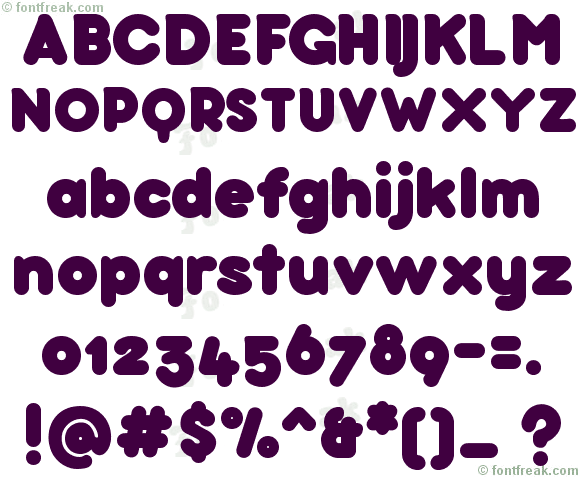
bubbleboddy Fat
About bubbleboddy Fat
Bubbleboddy Fat is a unique display font from the kmzero font foundry, designed to capture attention with its playful and rounded letterforms. As a decorative font, it features a bold stroke weight that creates a sense of warmth and approachability, making it ideal for various creative applications. The lack of sharp edges gives the font a friendly demeanor, while the consistent spacing between letters enhances readability, making it suitable for both headlines and body text.
This font excels in a variety of contexts where a lighthearted touch is desired. It can be particularly effective for children's book titles, offering a whimsical element that appeals to young readers. Additionally, bubbleboddy Fat is perfect for vibrant restaurant menus that aim to convey a casual atmosphere or for event flyers that require a fun and inviting look. Graphic designers might also find it useful for branding projects, where establishing a memorable identity is crucial. Furthermore, the font can add flair to social media graphics, helping content creators engage their audiences with eye-catching visuals.
What sets the bubbleboddy Fat font apart is its ability to combine functionality with personality. Its rounded forms and bold presence make it a standout choice for anyone looking to add a touch of whimsy and charm to their designs. For those interested in incorporating this distinctive typeface into their work, a bubbleboddy Fat font free download is readily available, allowing for immediate creative exploration.